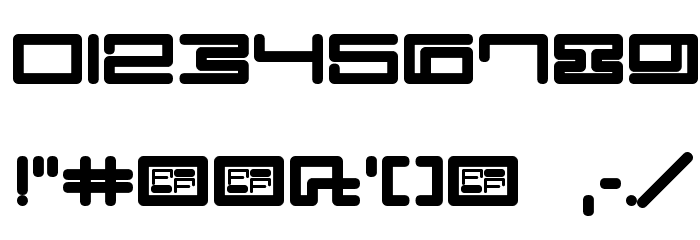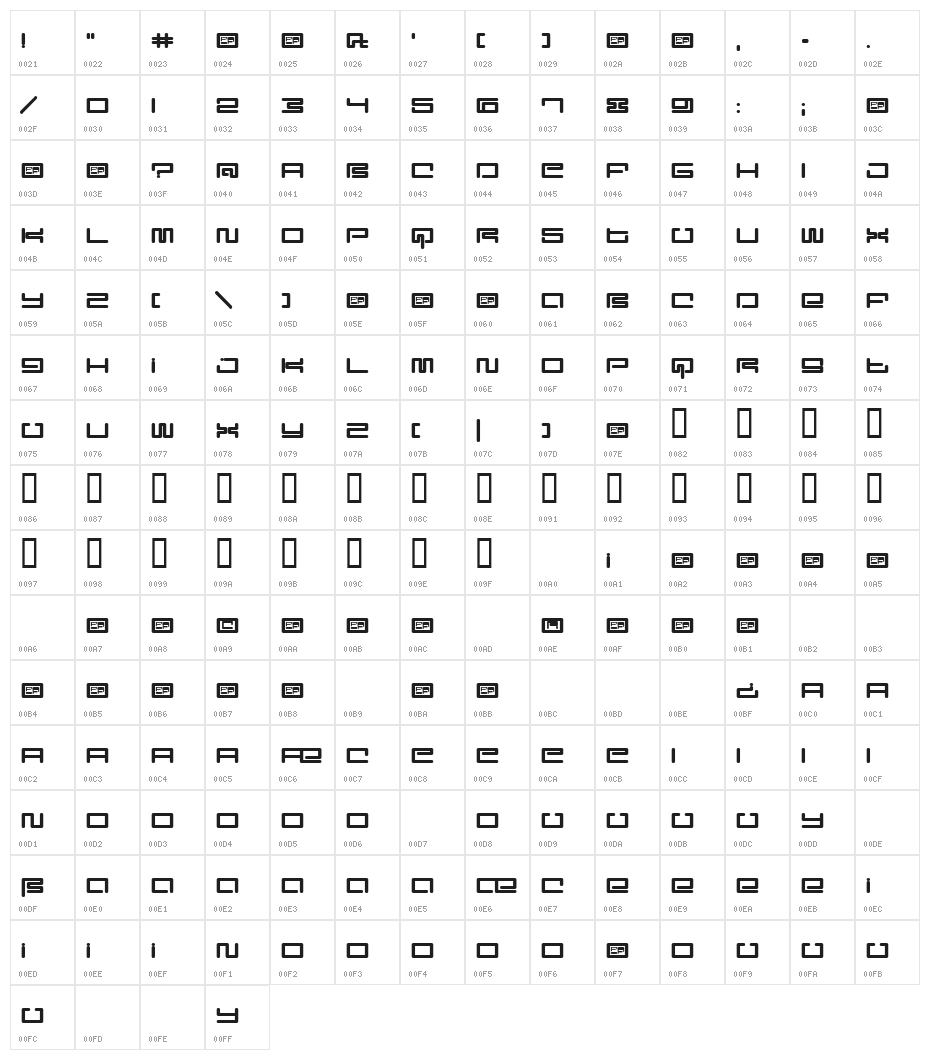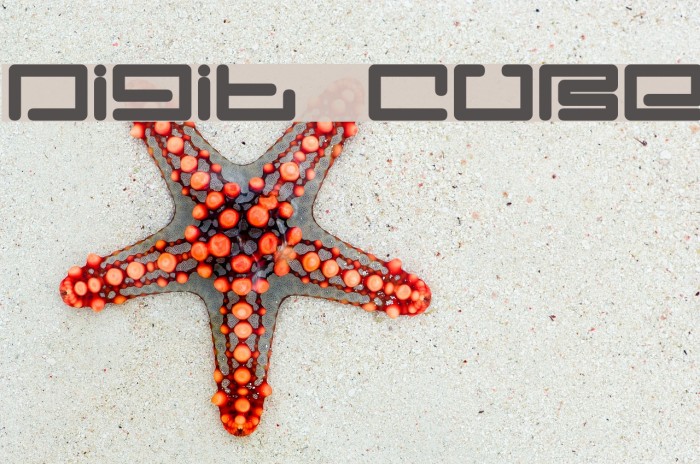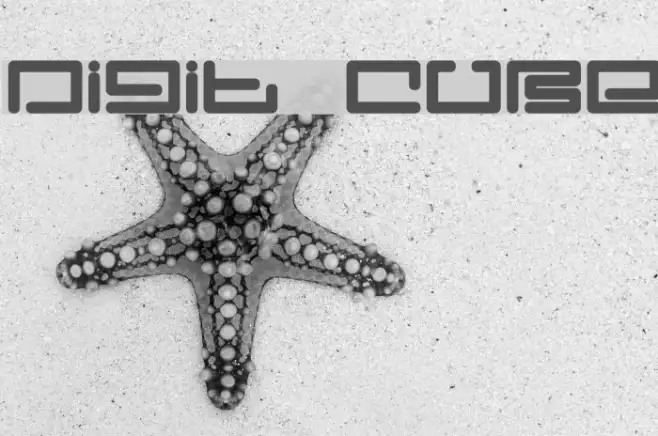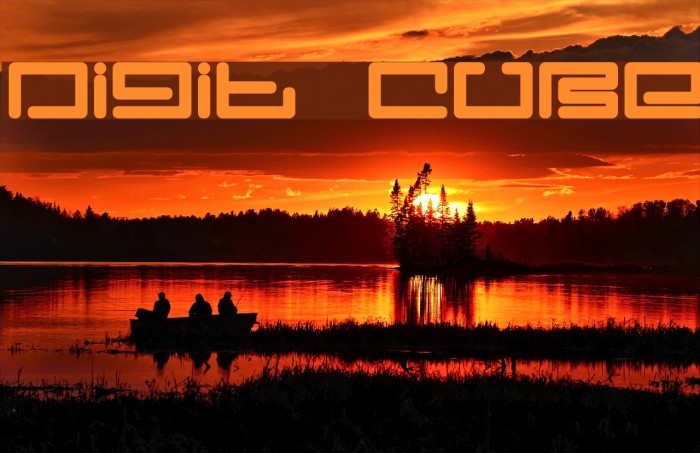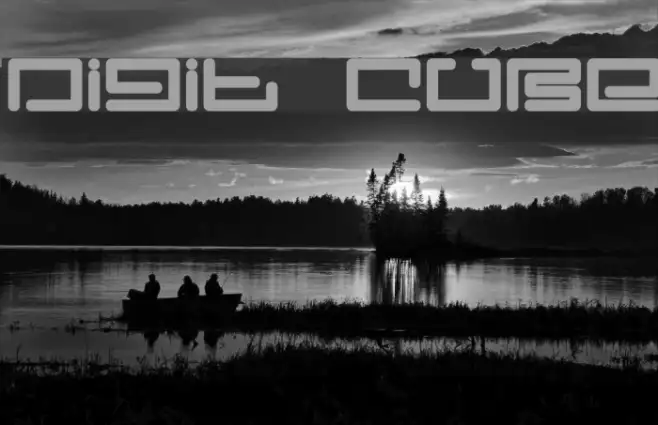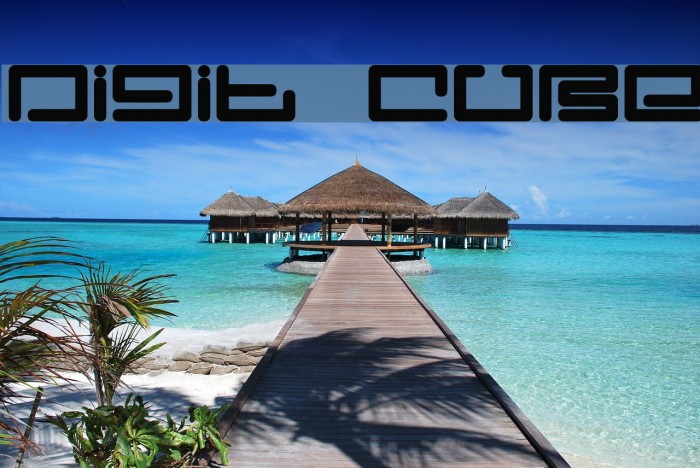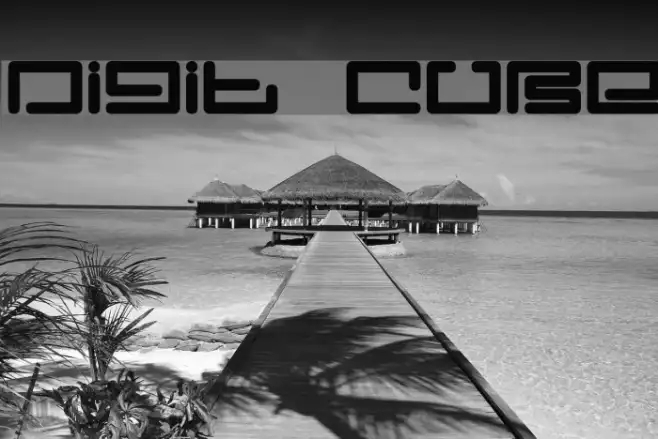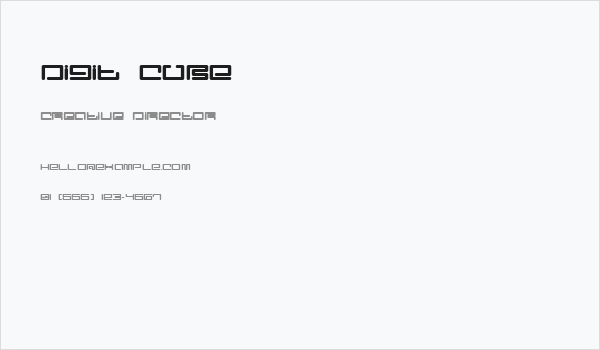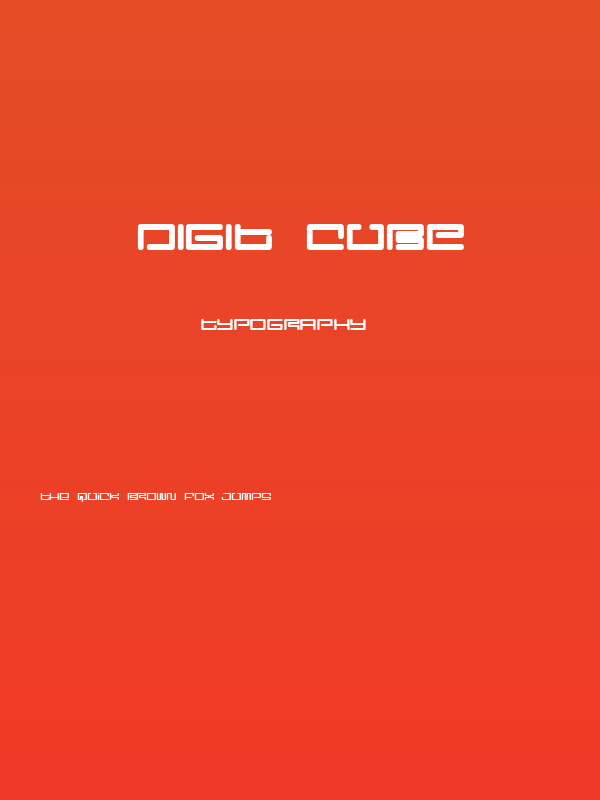
Digit Cube Font
Digit Cube Description
This font features a futuristic and geometric design, characterized by its bold, block-like structure. Each character is crafted with a consistent thickness, creating a uniform appearance across the alphabet and numerals. The design incorporates rounded corners and a digital aesthetic, reminiscent of retro computer displays or sci-fi interfaces. The uppercase and lowercase letters share a similar height, contributing to a cohesive and streamlined look. The numerals are distinct yet harmonize well with the alphabet, maintaining the overall theme. Special characters are designed with the same attention to detail, ensuring they fit seamlessly within the font's style. This font's unique design makes it suitable for projects that require a modern and technological feel.
| Proposed Projects | Ideal for tech-related branding, sci-fi themed projects, digital interfaces, and modern poster designs. |